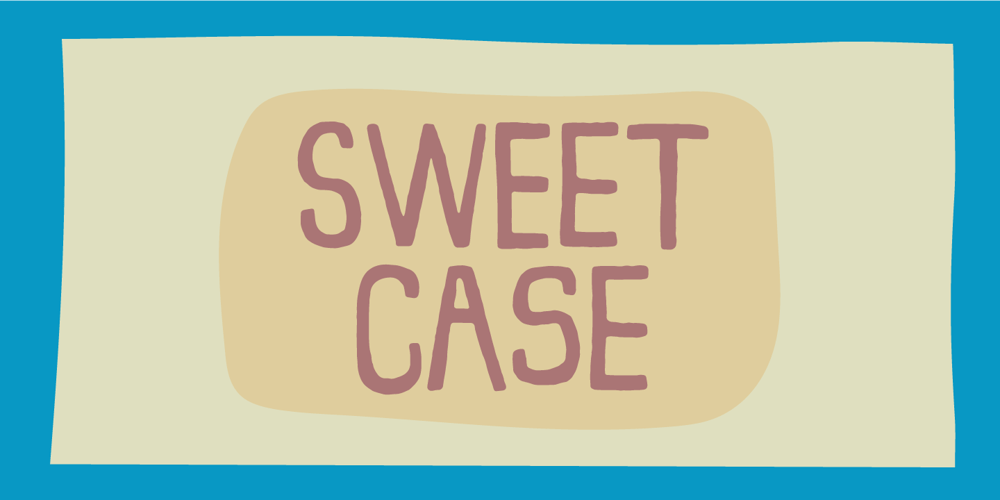
Sweet Case Font Family was designed by Jakob Fischer and published by Bogstav. Sweet Case contains 2 styles and family package options. Handmade with an organic feeling.You have 6 different versions of each letter to choose from + multilingual support!